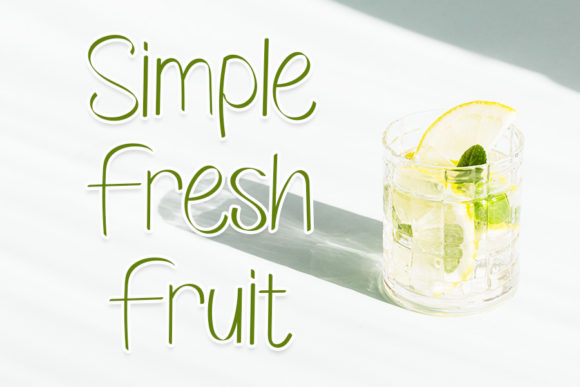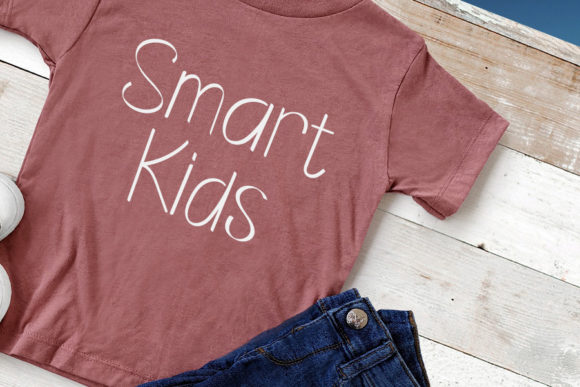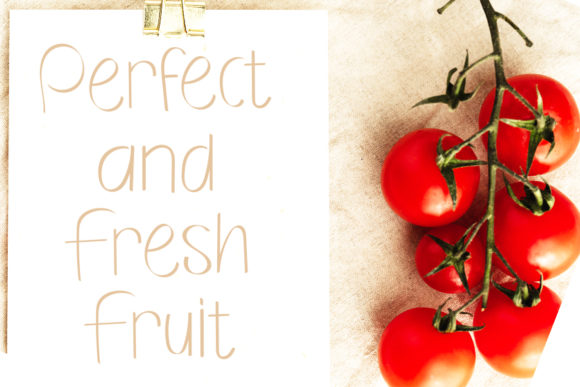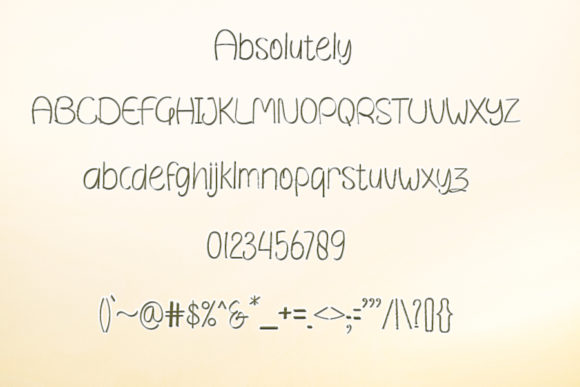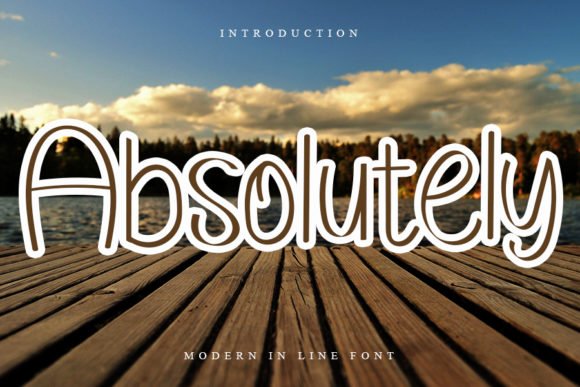
Unlock the Magic of Absolutely Font
Have you ever stared at a blank canvas, wondering how to bring your creative vision to life? You’re not alone. We’ve all been there, searching for that perfect combination of style and substance to make our designs truly shine. That’s where Absolutely Font comes in – a simple, yet powerful tool that’s sure to brighten up even the most mundane of projects.
This beautiful display font is designed to be versatile and fun, with a clean aesthetic that’s perfect for a wide range of applications. Whether you’re working on a logo, poster, or social media campaign, Absolutely Font is the perfect companion to help you bring your ideas to life. With its jolly spirit and endless variations, you’ll find yourself having a blast exploring all the creative possibilities this font has to offer.
So why settle for a generic font when you can have a font that’s absolutely unique? Absolutely Font is the perfect addition to any designer’s toolkit, offering a level of flexibility and personality that’s hard to find elsewhere. So what are you waiting for? Dive in and discover the magic of Absolutely Font for yourself.
Absolutely Font Key Features
- Unique Characteristics: The font features a distinctive, modern aesthetic with clean lines, geometric shapes, and subtle flair, making it ideal for branding, packaging, and digital design projects.
Review of “Absolutely Font”
Overall, I was excited to dive into “Absolutely Font” and see what it had to offer. While it has some great qualities, it’s not without its limitations.
- Unique Character: “Absolutely Font” brings a fresh, modern feel to any design project. Its quirky personality is sure to stand out and grab attention.
- High-Quality Typography: The font is well-designed, with crisp lines and clear letterforms that make it easy to read.
- Great for Creative Projects: With its bold, playful style, “Absolutely Font” is perfect for creative projects like social media graphics, advertisements, and even branding.
- Limited Versatility: While “Absolutely Font” excels in creative projects, it may not be the best choice for more formal or professional designs.
- Not Ideal for Body Text: The font’s bold style can make it difficult to read large blocks of text, so it’s best used for headings and smaller text.
In conclusion, “Absolutely Font” is a fun, energetic font that’s perfect for creative projects. While it may have some limitations, its unique character and high-quality typography make it a great addition to any designer’s toolkit.
“Absolutely Font” is ideal for use in creative projects, such as:
- Graphic design
- Typography-based art